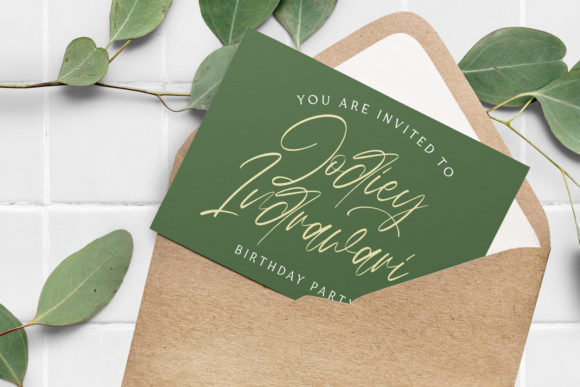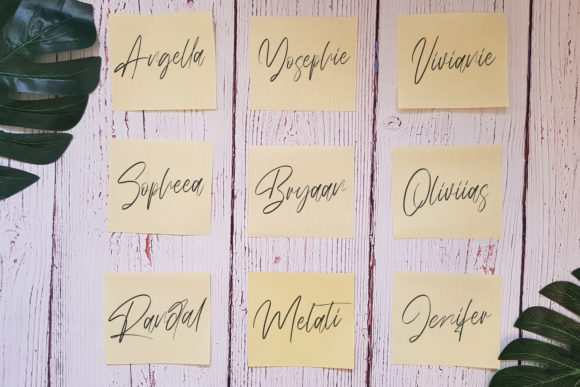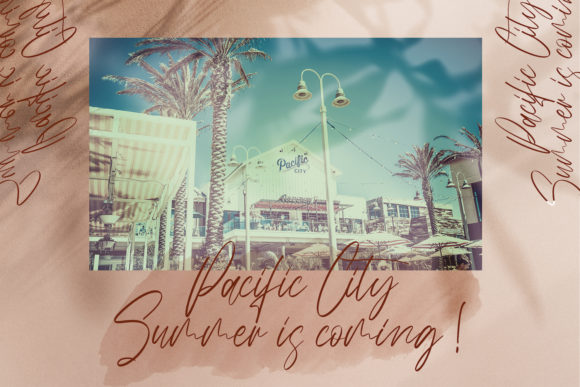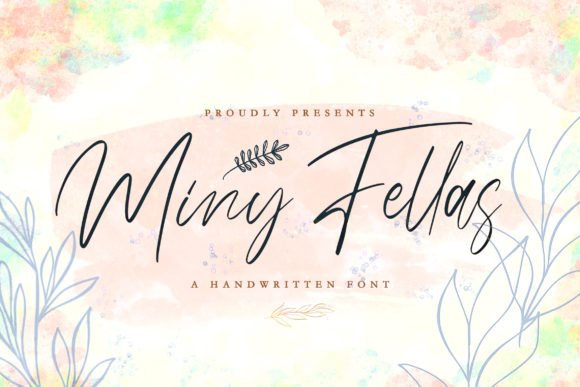
Introduction to Miny Fellas Font
Miny Fellas is inspired by classic typography and brings its own unique style to any design project.
Use this gorgeous and unique handwritten font to bring any DIY project to life .
Key Features of Miny Fellas Font
Why Choose Miny Fellas Font?
Miny Fellas Font offers exceptional quality and versatility, making it a valuable addition to your design toolkit. Whether you’re creating for personal projects or commercial use, Miny Fellas Font delivers professional results.